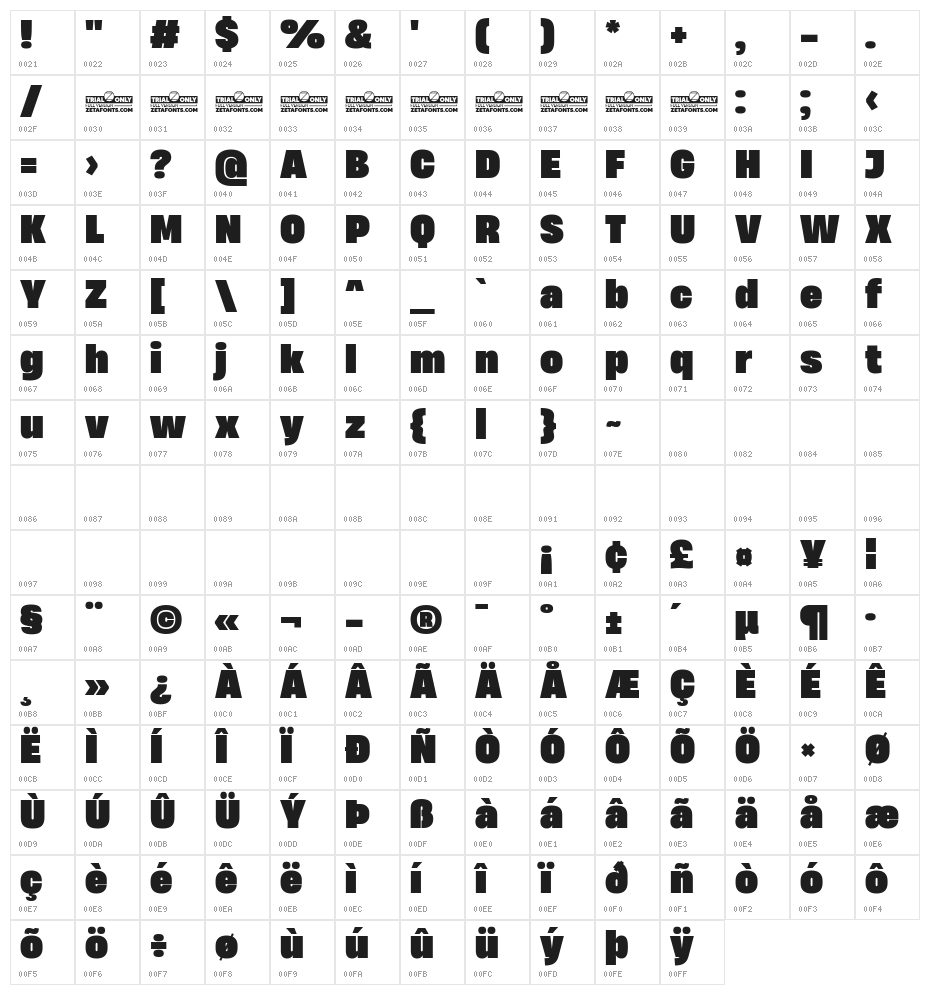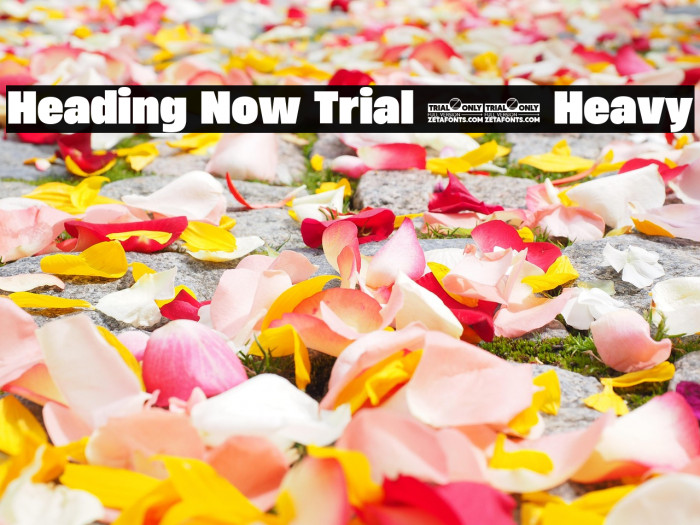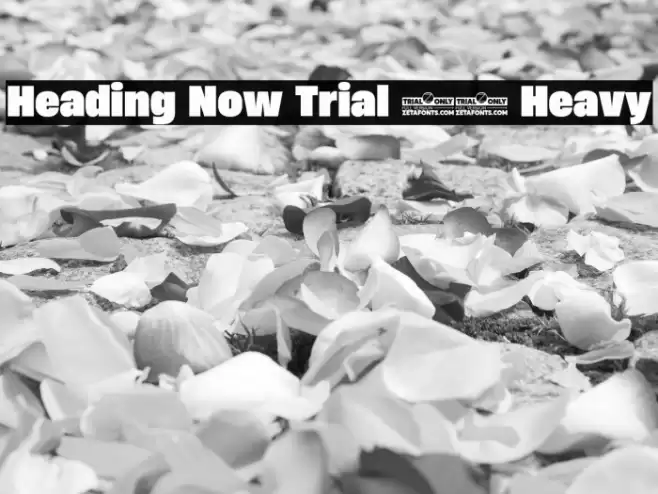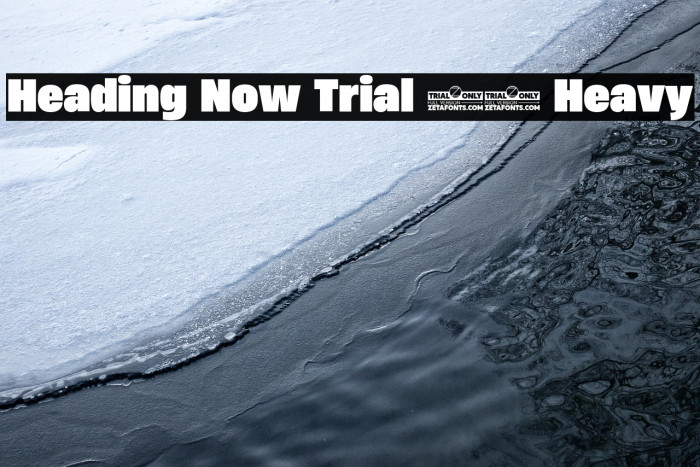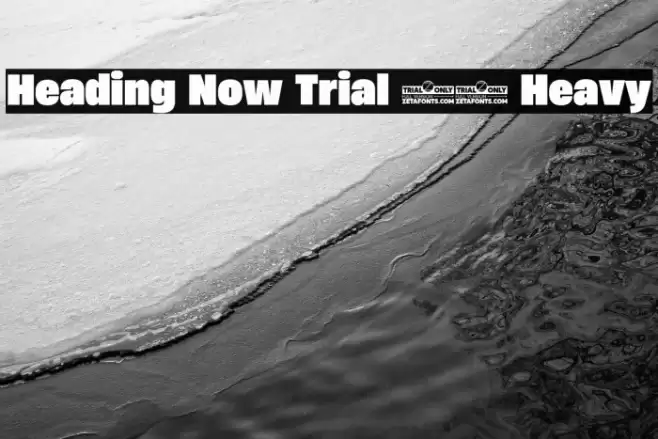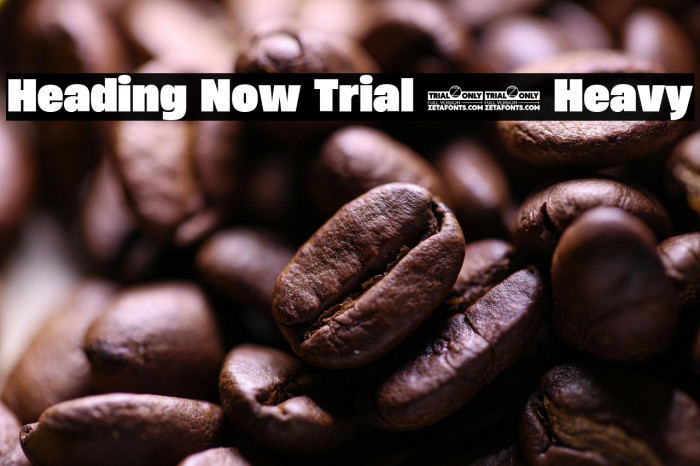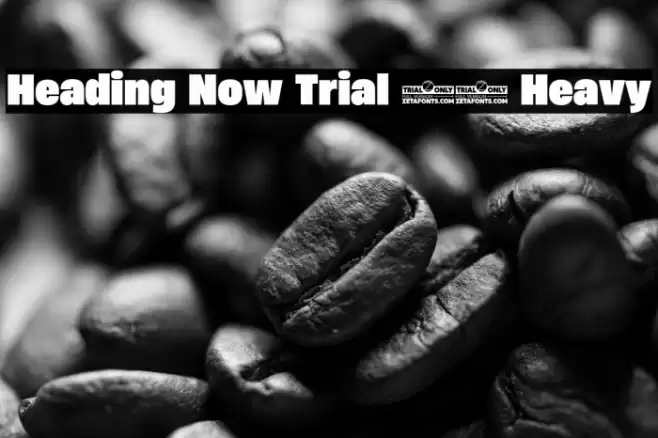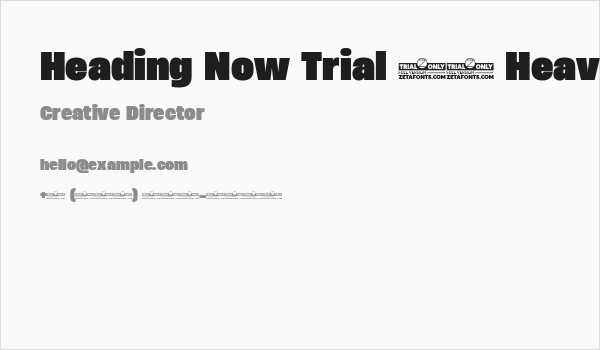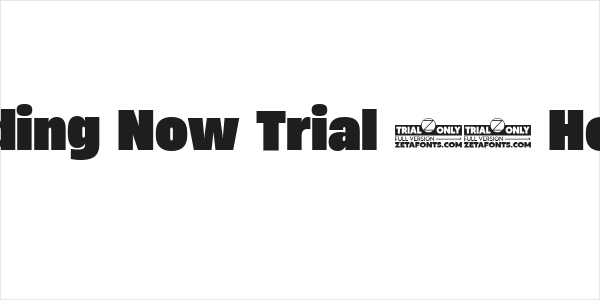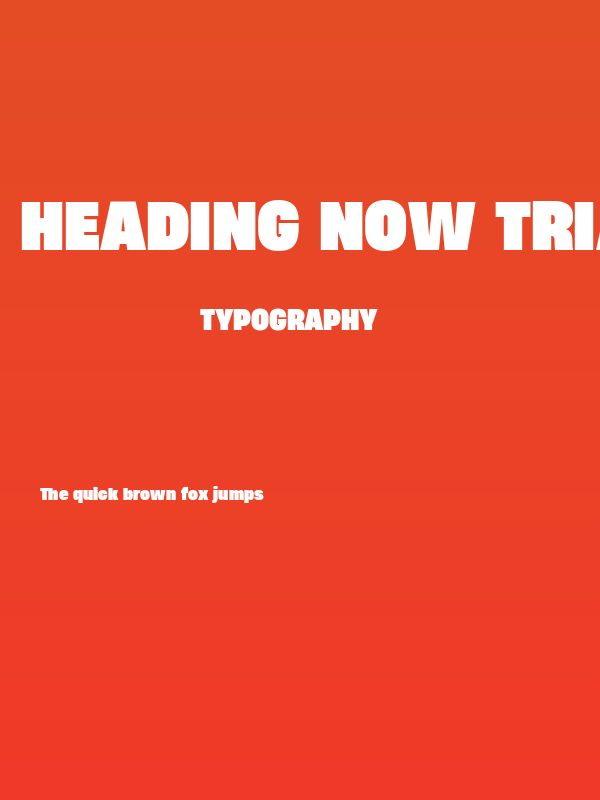
Heading Now Trial 68 Heavy Font
Heading Now Trial 68 Heavy Description
This font is a bold and impactful typeface with a strong presence. The characters are heavy and wide, making them ideal for attention-grabbing headlines. The uppercase and lowercase letters maintain a consistent thickness, contributing to a cohesive and powerful look. The numerals and special characters are equally robust, ensuring uniformity across all text elements. This font's design is straightforward and assertive, perfect for making a statement.
| Proposed Projects | This font is perfect for advertising campaigns, poster designs, and branding projects where a strong visual impact is required. |